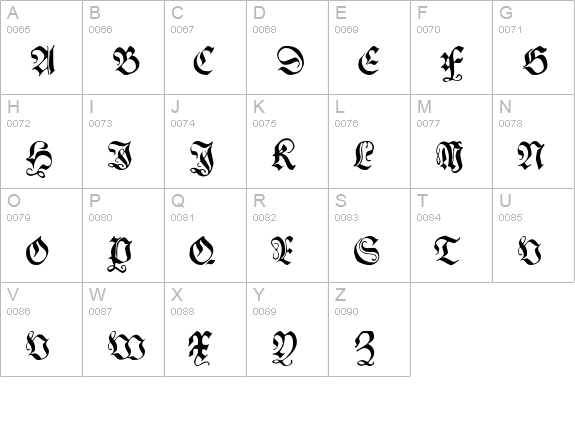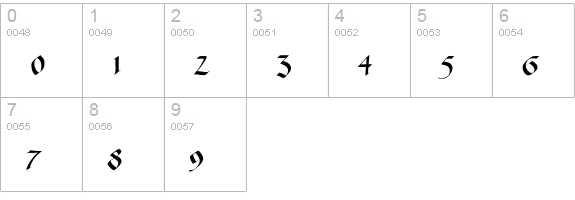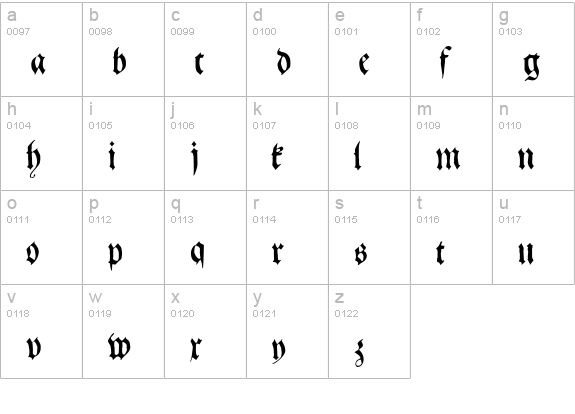
GebetbuchFraktur Font Details
GebetbuchFraktur is a stunning and elegant font that exudes timeless charm and sophistication. This font boasts intricate details and a classic Fraktur style that is perfect for adding a touch of vintage flair to your projects. Its exquisite design makes it ideal for invitations, labels, posters, and more. What makes GebetbuchFraktur even more appealing is that it is available for free download at FontsMarket.com. This means you can easily access this beautiful font and use it in your designs without any cost. Don't miss out on the opportunity to enhance your creations with the beauty of GebetbuchFraktur. Download it today and add a touch of old-world elegance to your projects.